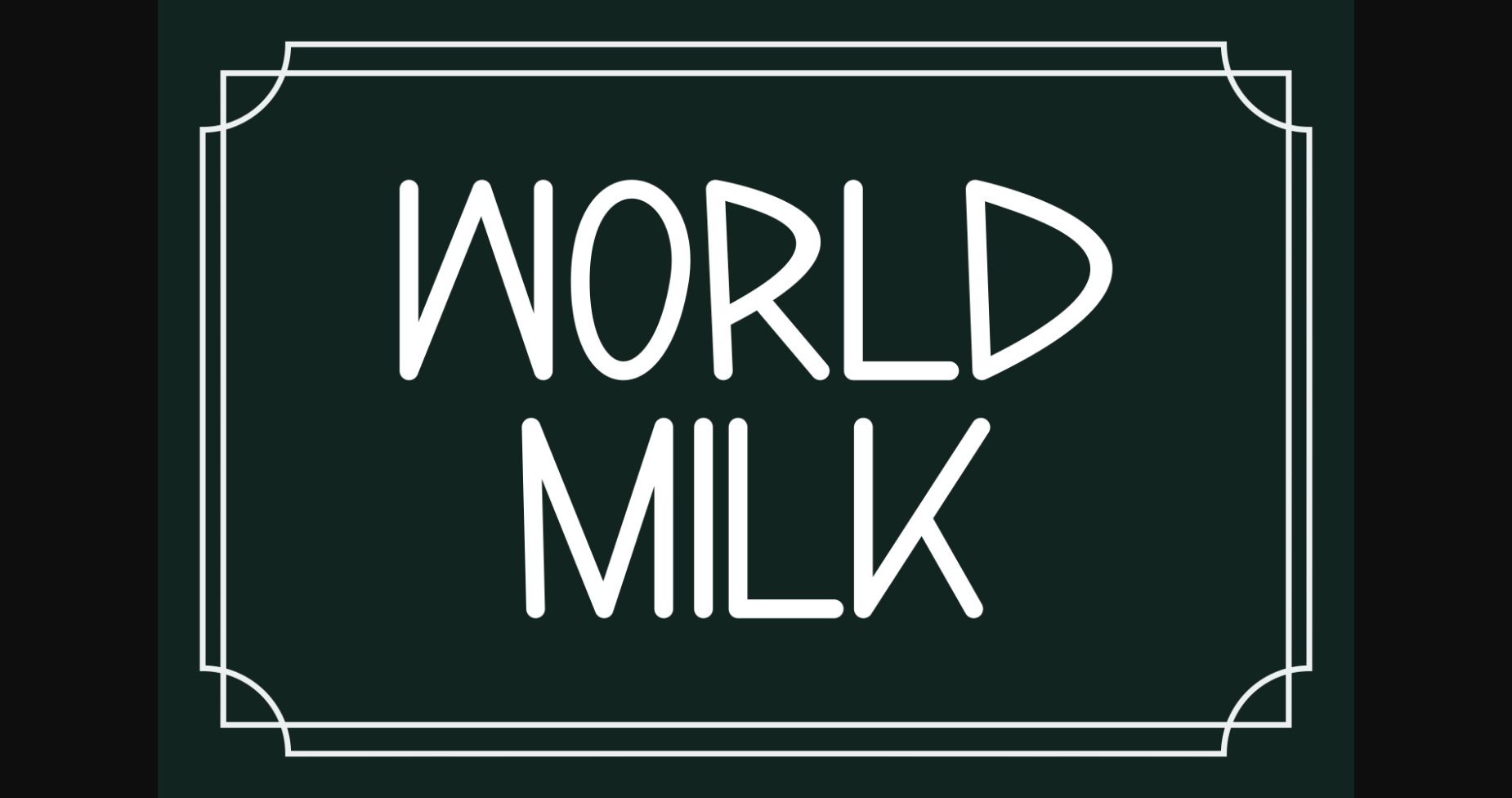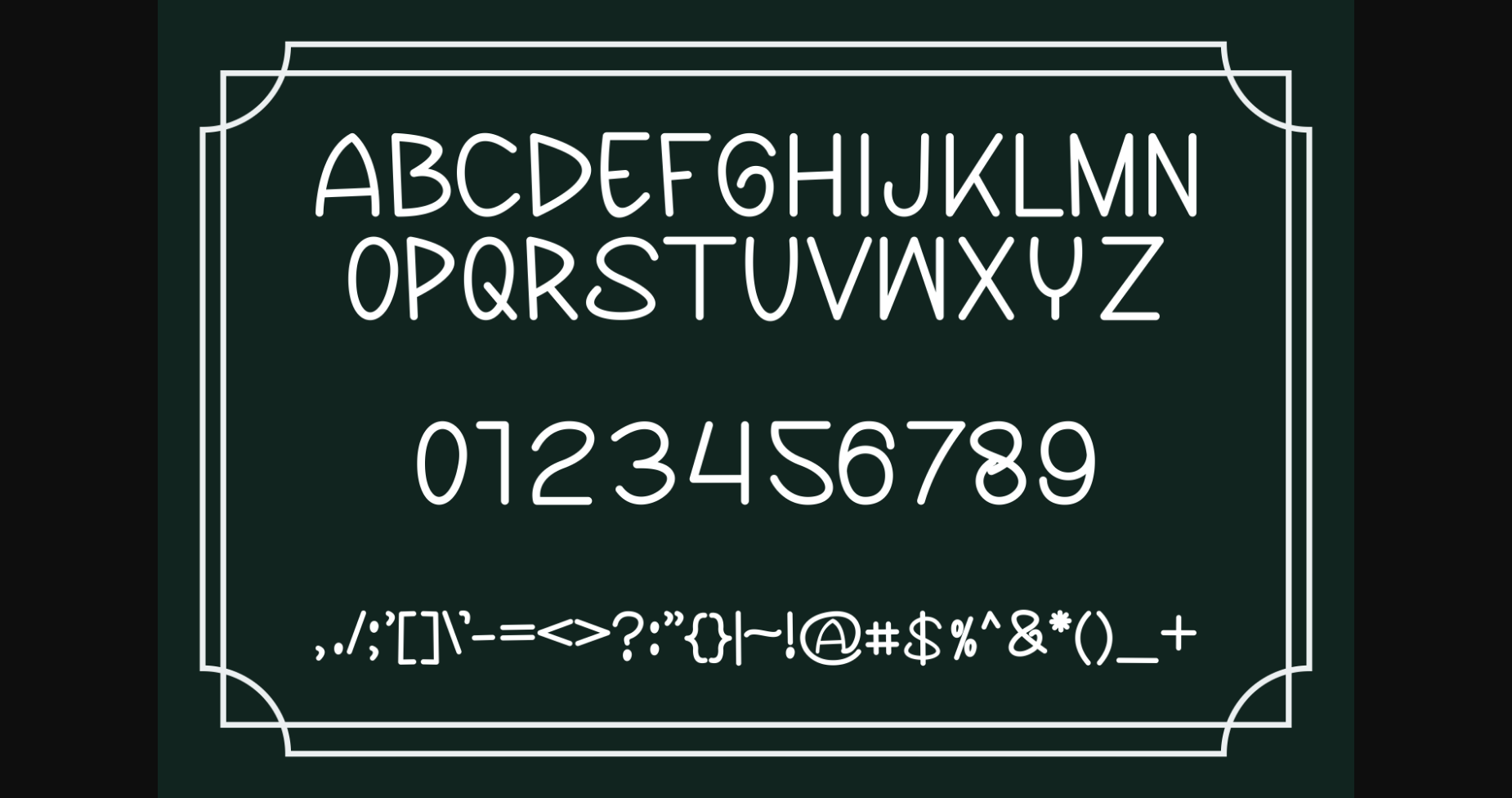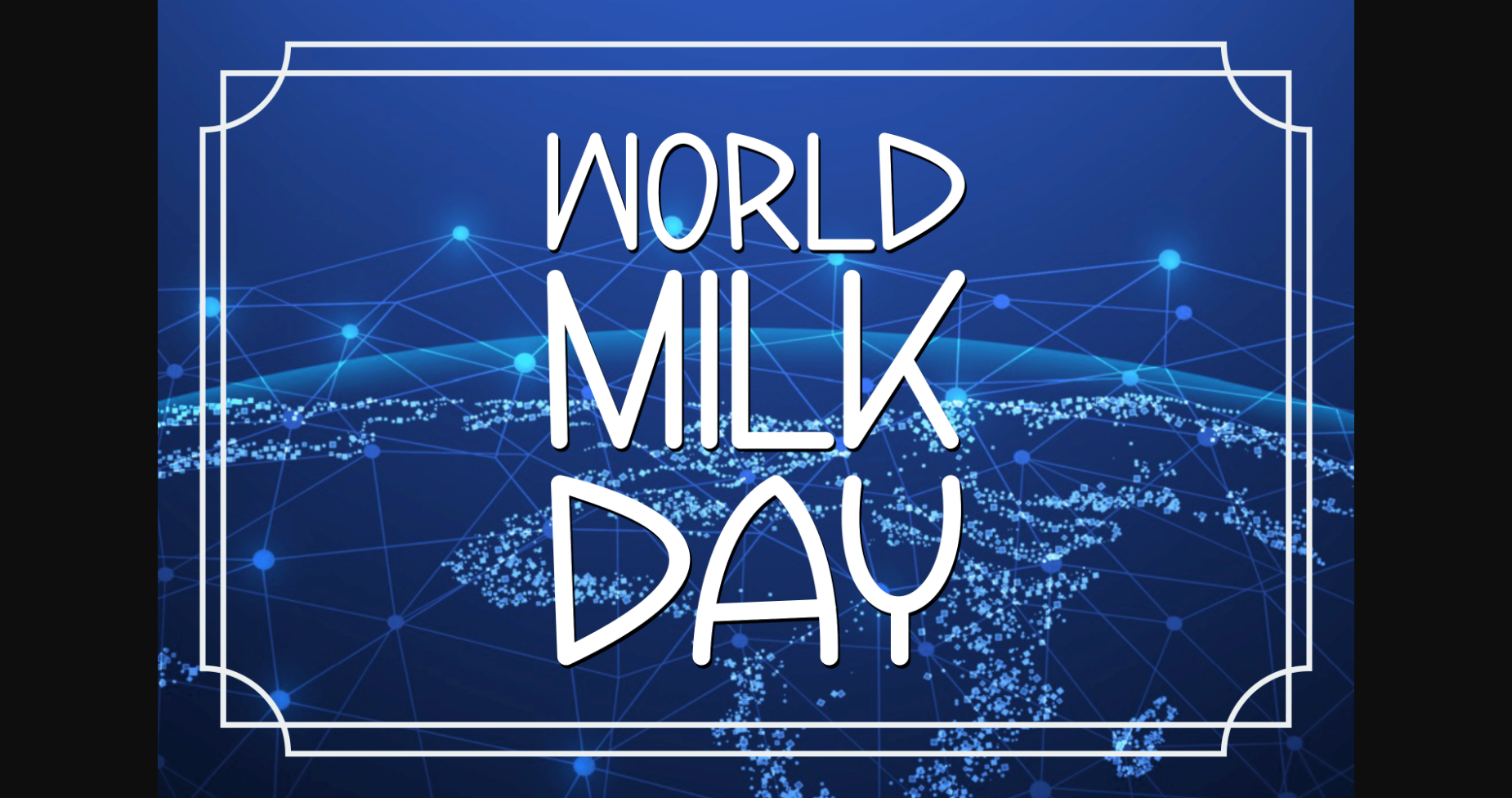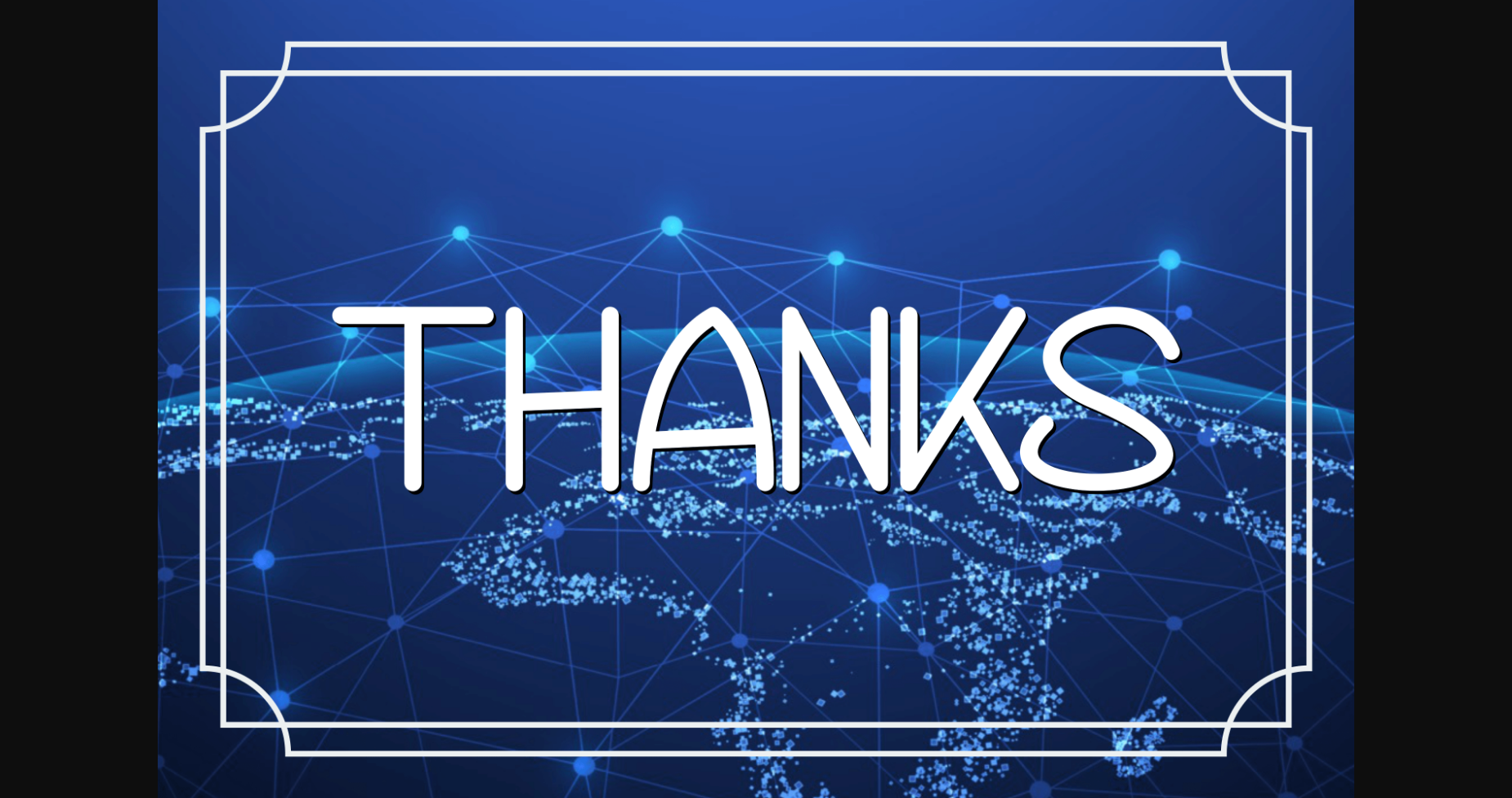
HomeSans Serif FontsWord Milk Font Sans Serif Fonts Word Milk Font FacebookXPinterestWhatsApp 1 of 6 ... Word Milk Font Poster 2... Word Milk Font Poster 3... Word Milk Font Poster 4... Word Milk Font Poster 5... Word Milk Font Poster 6... About Word Milk Font Word Milk is a fun and casual sans serif font. Add it confidently to your projects and you will love the results! DOWNLOAD NOW People also explored Dartcha Font Rose Thorns Font Xotor Saturday Sans Font Reverse Osmosis Font Some Love Font Beekeepers Font Carriage Script Font Angelina Font 318 0 TagsWord Milk Font Previous articleUnderrated FontNext articleTwilight Forest Font LEAVE A REPLY Cancel reply Comment: Please enter your comment! Name:* Please enter your name here Email:* You have entered an incorrect email address! Please enter your email address here Website: Save my name, email, and website in this browser for the next time I comment. Personal Use Free My Ugly Handwritting Personal Use Free Read more about this font Stentiga Personal Use Free Read more about this font Peristiwa Font Personal Use Free Read more about this font Juliagar Personal Use Free Read more about this font BLOG Free Fonts Risk: Why Free Fonts Can Be Dangerous for Designers Free Fonts Risk: Why Free Fonts Can Be Dangerous for Designers Using free fonts is a common practice in web and graphic design. However, the... Free vs Paid Fonts: Why Investing in Premium Fonts Is Worth It Modern Sans-Serif Fonts That Brands Love in 2025 To increase your work productivity, choose the most readable fonts.